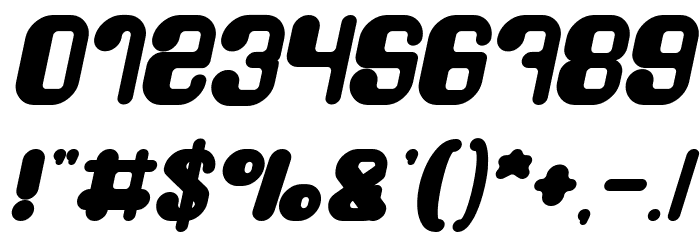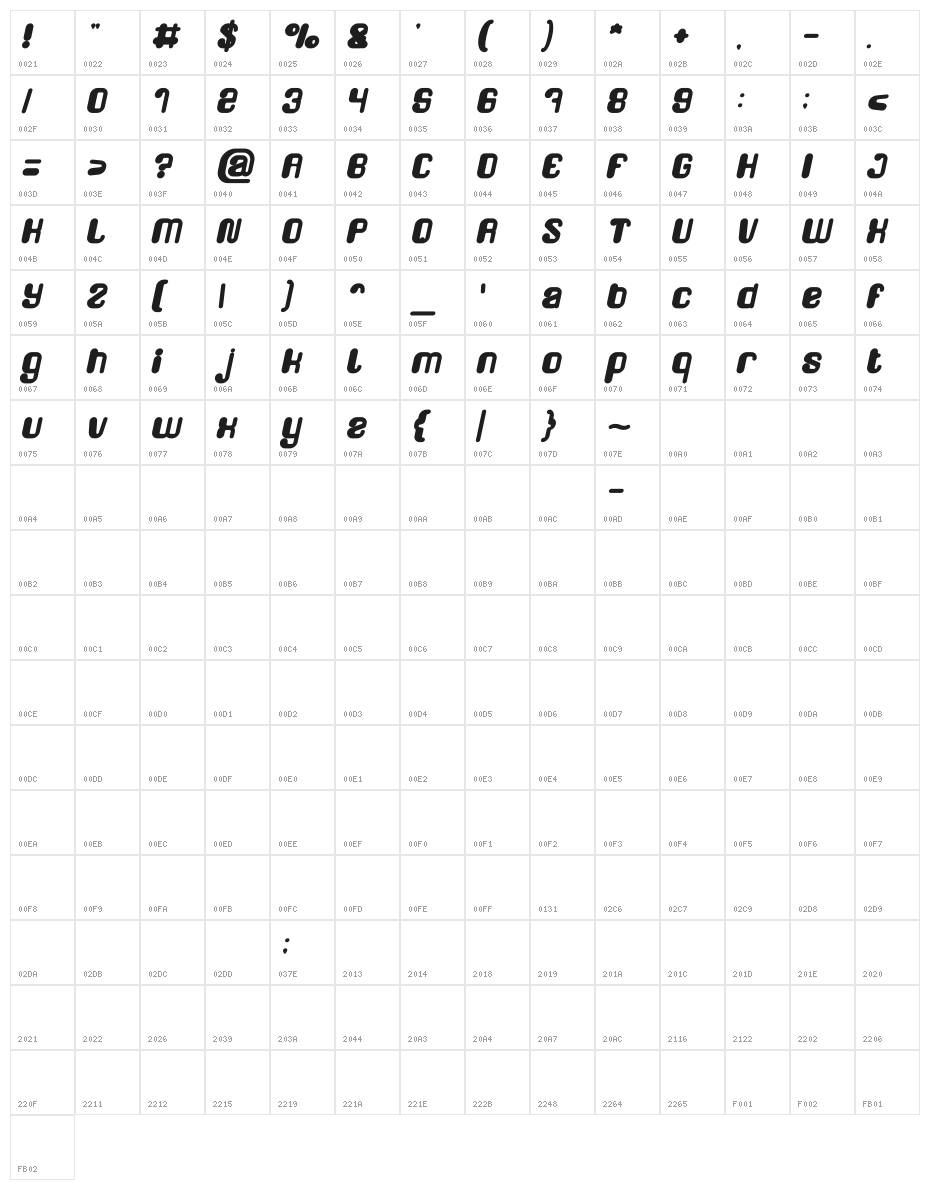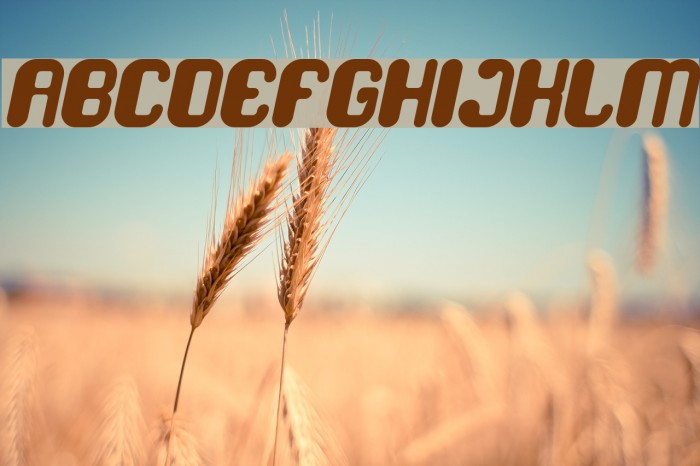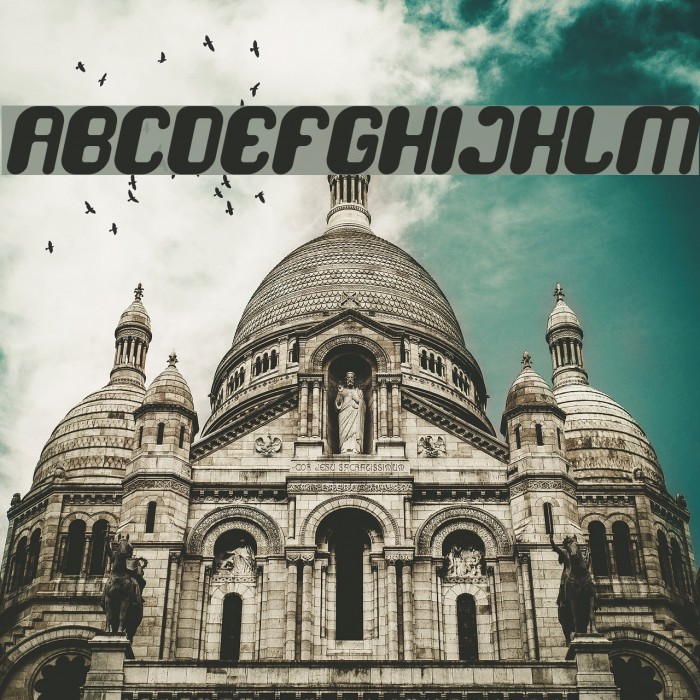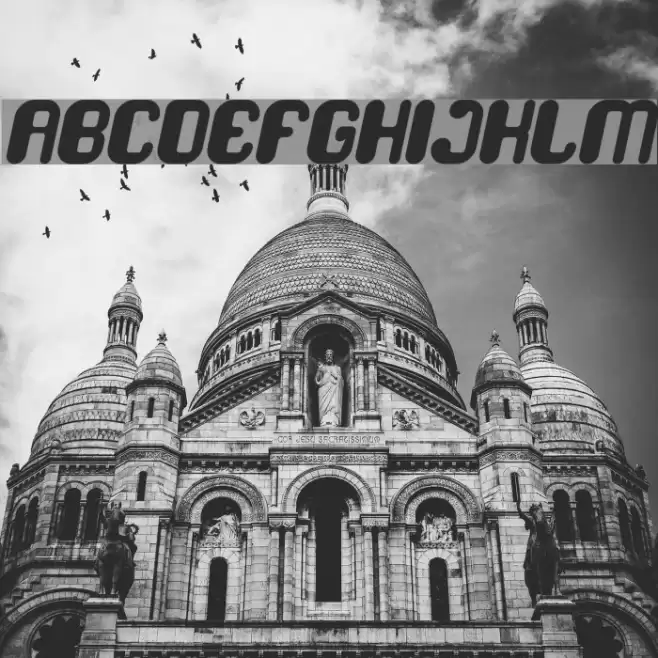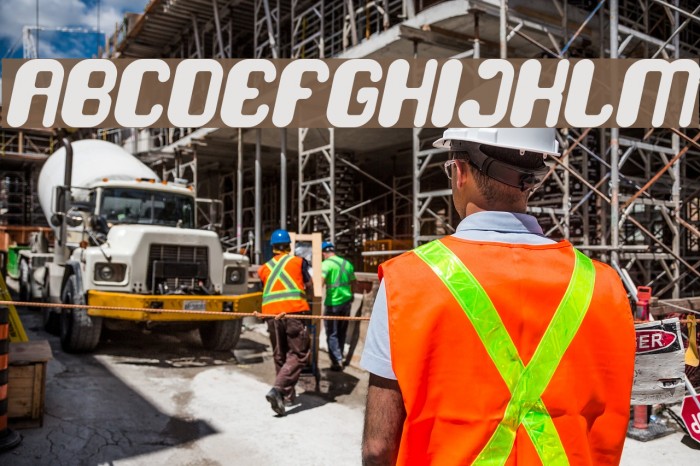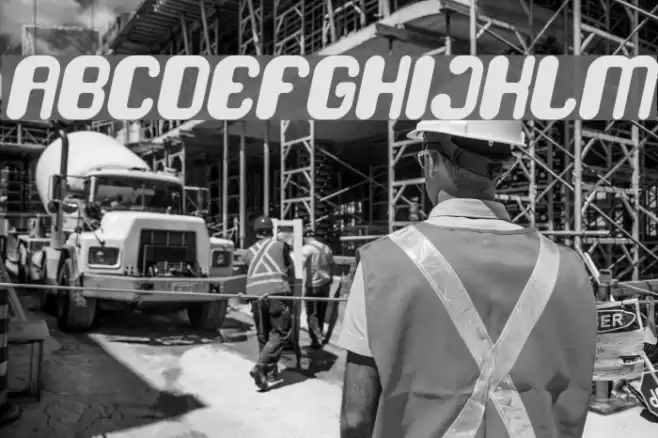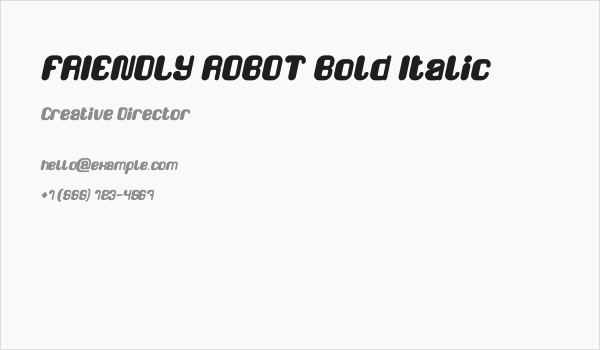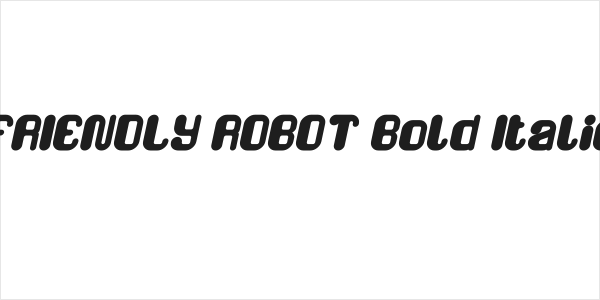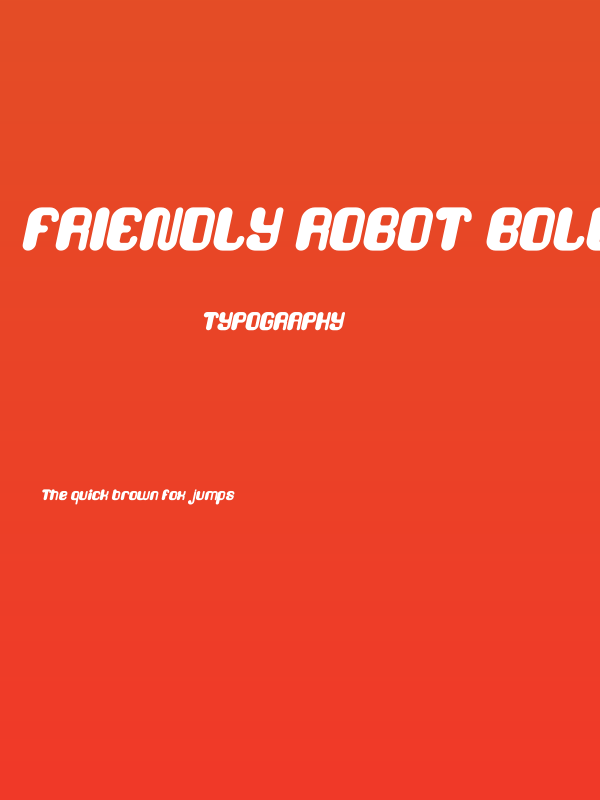
FRIENDLY ROBOT Bold Italic Font
FRIENDLY ROBOT Bold Italic Description
This font features a bold and italic style with a modern, futuristic aesthetic. The characters are rounded and smooth, giving a friendly and approachable feel. The uppercase and lowercase letters maintain a consistent design, with a slight slant that enhances the italic effect. The numbers and special characters follow the same design principles, ensuring uniformity across all glyphs. The overall look is playful yet professional, making it suitable for a variety of creative projects.
| Proposed Projects | Ideal for tech-related branding, playful logos, modern advertising, and futuristic-themed designs. |